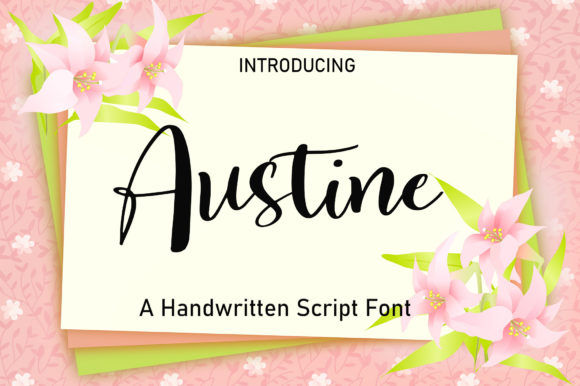
Austine Font: Elevate Your Designs with Elegance and Sophistication
In the world of typography, a well-chosen font can make all the difference in elevating your designs from ordinary to extraordinary. For designers and crafters seeking a stylish and elegant handwritten font, Austine Font is an exceptional choice. This beautiful font is perfect for adding a touch of sophistication to various design projects, including wedding invitations, thank you cards, quotes, greeting cards, logos, business cards, and more.
The Beauty of Austine Font
Austine Font is a stunning handwritten font that exudes elegance and refinement. Its flowing lines and delicate strokes create a sense of luxury, making it ideal for designs that require a high level of sophistication. Whether you’re working on a wedding invitation, a logo, or a business card, Austine Font is sure to impress. Its versatility allows it to be used in a wide range of design applications, from formal events to everyday branding.
Key Features of Austine Font
• PUA Encoded: Austine Font is PUA (Private Use Area) encoded, which means you can easily access all the glyphs and swashes. This feature allows for greater flexibility and creativity in your designs.
• Handwritten Elegance: Austine Font boasts a beautiful, handwritten appearance that adds a personal touch to your designs.
• Wide Range of Applications: From wedding invitations and greeting cards to logos and business cards, Austine Font is suitable for various design projects.
Why Choose Austine Font?
With so many fonts available, why should you choose Austine Font for your designs? Here are a few compelling reasons:
• Unique and Eye-Catching: Austine Font’s elegant and stylish appearance sets it apart from more traditional fonts, making your designs stand out.
• Easy to Use: As a PUA encoded font, Austine Font is easy to work with, allowing you to access a wide range of glyphs and swashes with ease.
• Versatile: Austine Font’s versatility makes it suitable for a wide range of design applications, from formal events to everyday branding.
Tips for Using Austine Font in Your Designs
To get the most out of Austine Font, here are some tips for incorporating it into your designs:
• Pair with Complementary Fonts: Combine Austine Font with complementary fonts to create visual interest and add depth to your designs.
• Experiment with Swashes: Take advantage of Austine Font’s PUA encoding to experiment with different swashes and glyphs, adding a unique touch to your designs.
• Use for Headlines and Titles: Austine Font’s elegant appearance makes it perfect for headlines and titles, adding a touch of sophistication to your designs.
In conclusion, Austine Font is a stylish and elegant handwritten font that can elevate your designs to new heights. Its versatility, ease of use, and beautiful appearance make it an excellent choice for designers and crafters seeking to add a touch of sophistication to their work. Whether you’re working on a wedding invitation, a logo, or a business card, Austine Font is sure to impress.